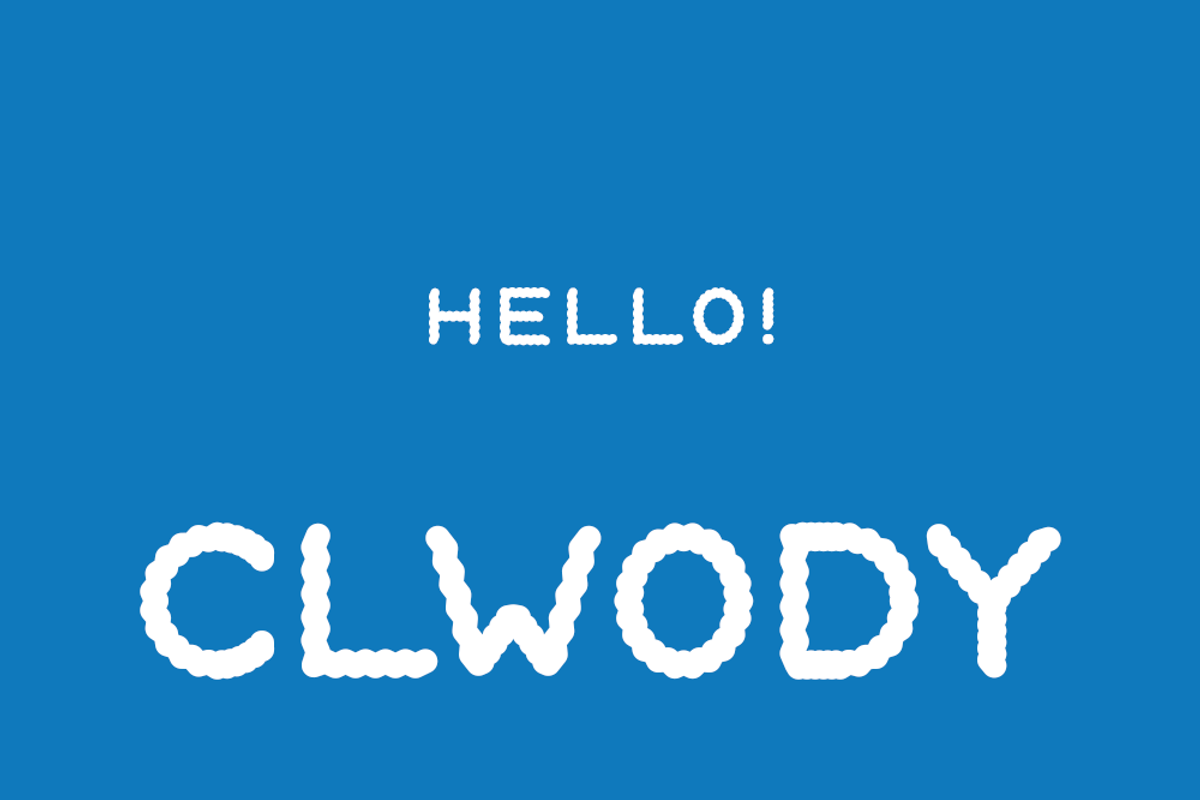
Clwody Font Free Download is a whimsical and playful typeface that brings a fun, hand-crafted style to your designs. Featuring soft curves and friendly letterforms, Clwody is perfect for projects that need a lighthearted, charming touch, such as children's designs, invitations, greeting cards, social media graphics, and more.
Clwody Font Free Download adds a joyful and approachable feel to your typography, making it ideal for any design that aims to be fun, engaging, and welcoming. Whether you’re working on a playful logo, a creative invitation, or a cheerful branding project, Clwody brings personality and warmth to your work. Download it today and bring a bit of whimsy to your next design project!